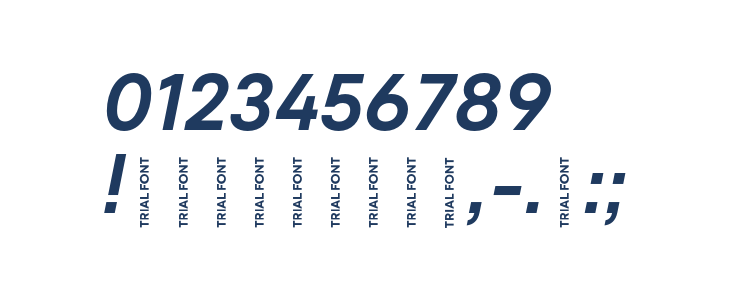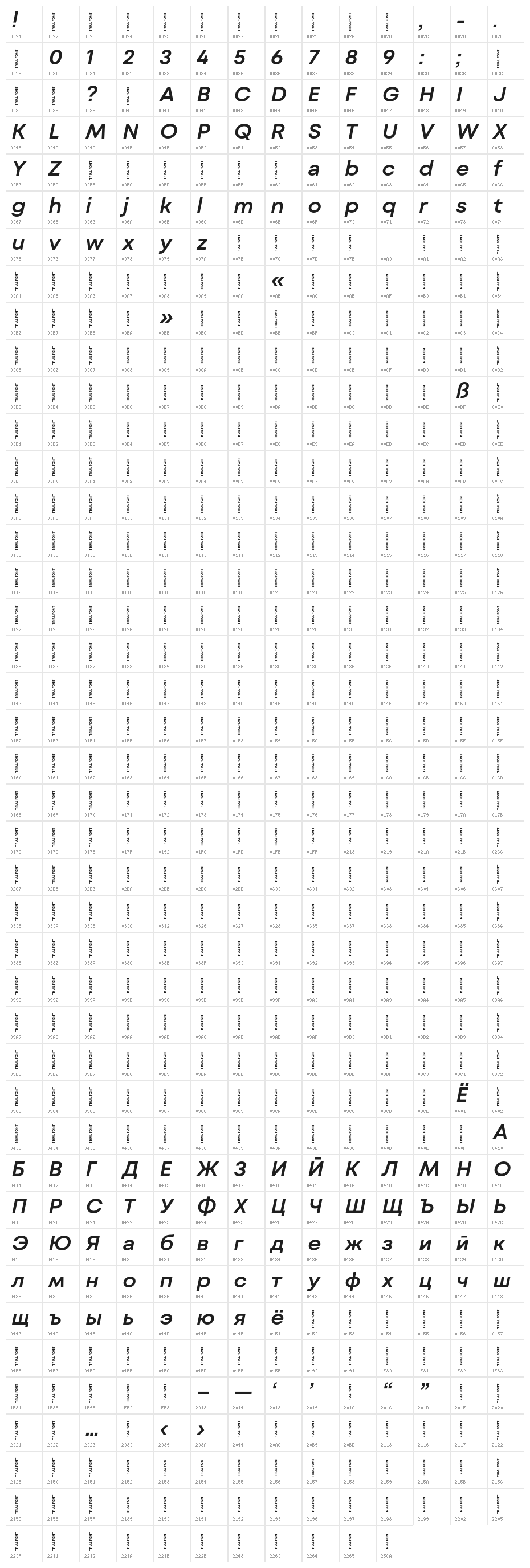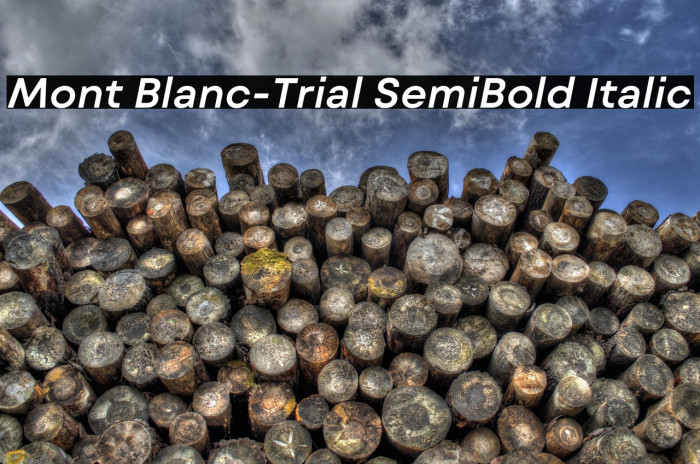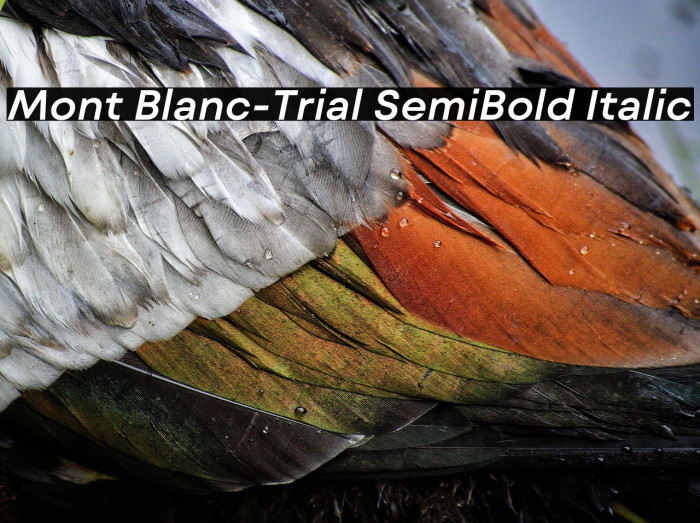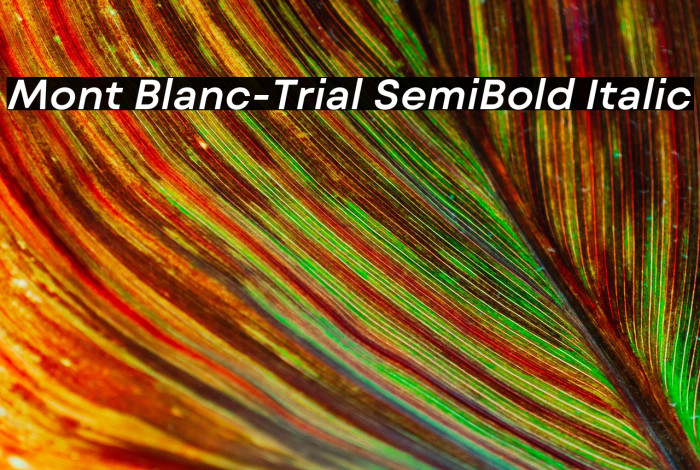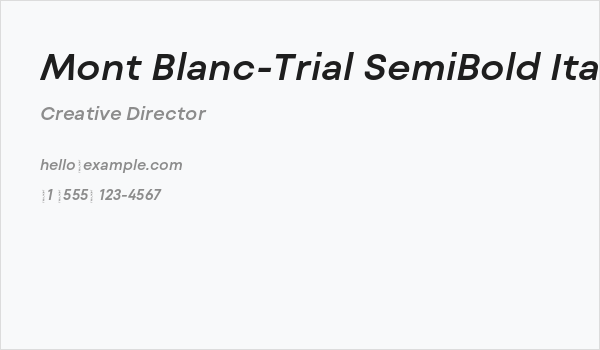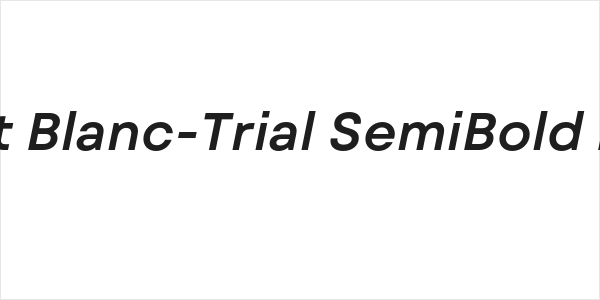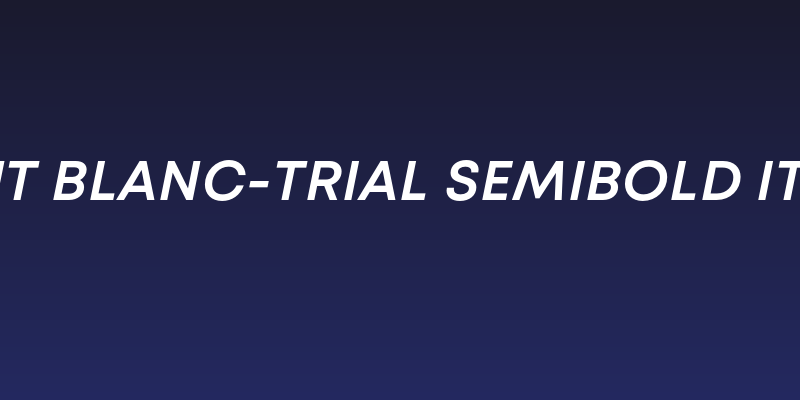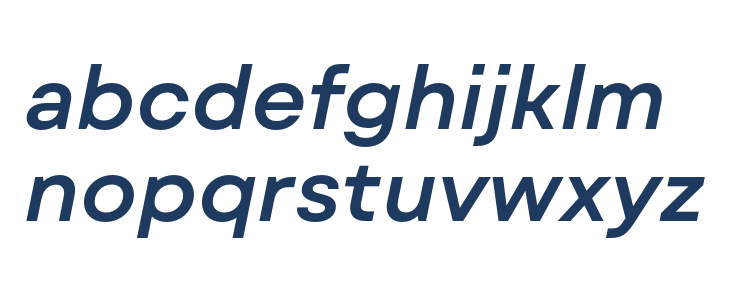
Mont Blanc-Trial SemiBold Italic Font
Mont Blanc-Trial SemiBold Italic Description
This font exhibits a sleek and modern design with a semi-bold weight and italic style. The characters are slightly slanted, giving a dynamic and forward-moving appearance. The strokes are consistent and smooth, contributing to a clean and professional look. The font maintains a balanced proportion between the height and width of the characters, ensuring readability. It features a sans-serif style, which is evident in the absence of decorative elements at the ends of the strokes. The numbers and special characters are designed to match the overall aesthetic, providing a cohesive look across all glyphs.
Use CaseHeadlines, Logos, Branding
Proposed ProjectsIdeal for branding projects, modern web design, advertising, and editorial headlines.